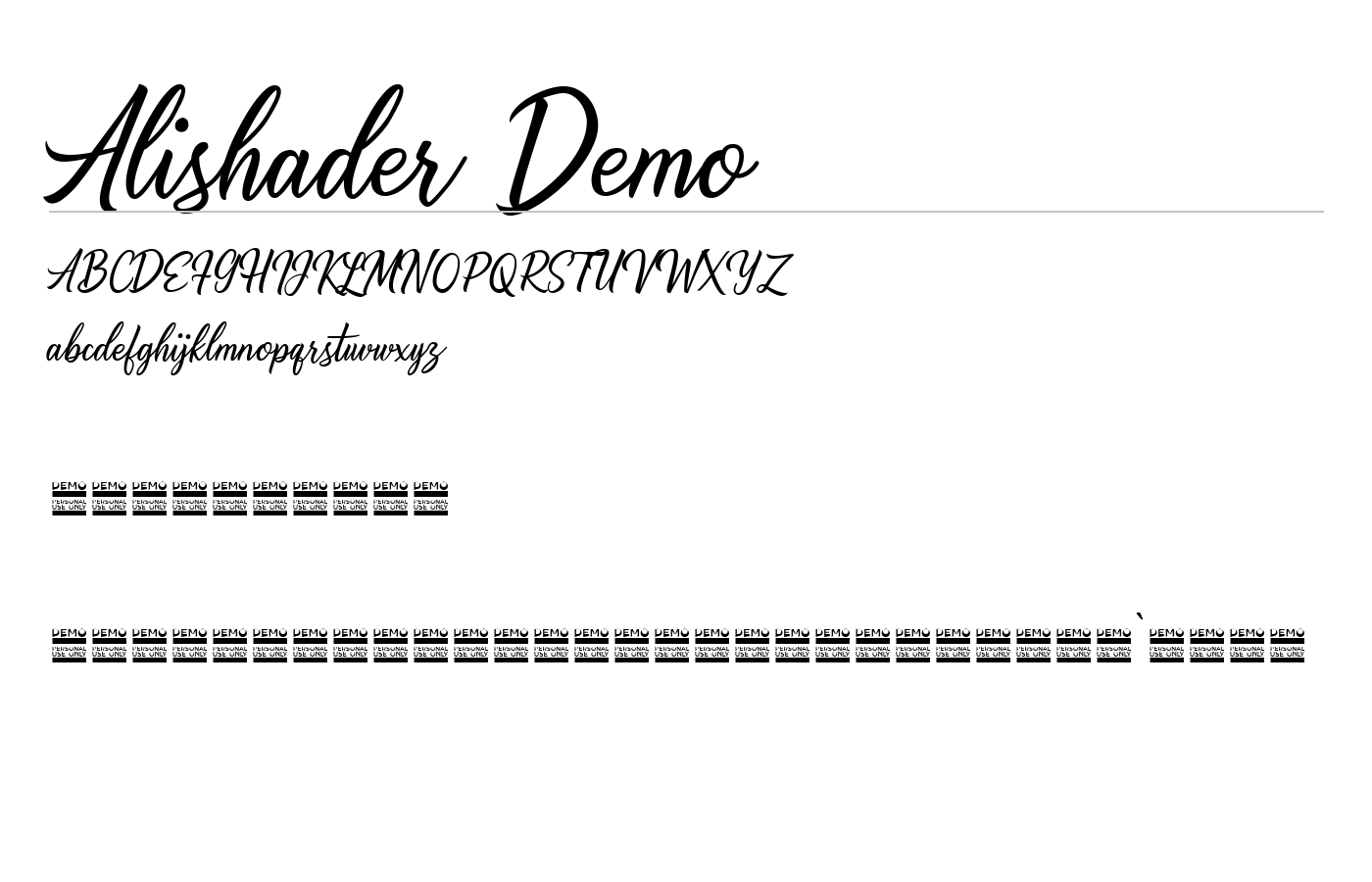
Alishader Demo is an elegant script font characterized by its fluid, high-contrast strokes and graceful, handwritten feel. Its refined cursive style with delicate curves and smooth connections works beautifully for sophisticated branding, invitations, and headlines where a personal, stylish touch is desired. This font is ideal for luxury and creative projects that seek to combine modern flair with classic calligraphic charm.
Alishader Demo Font